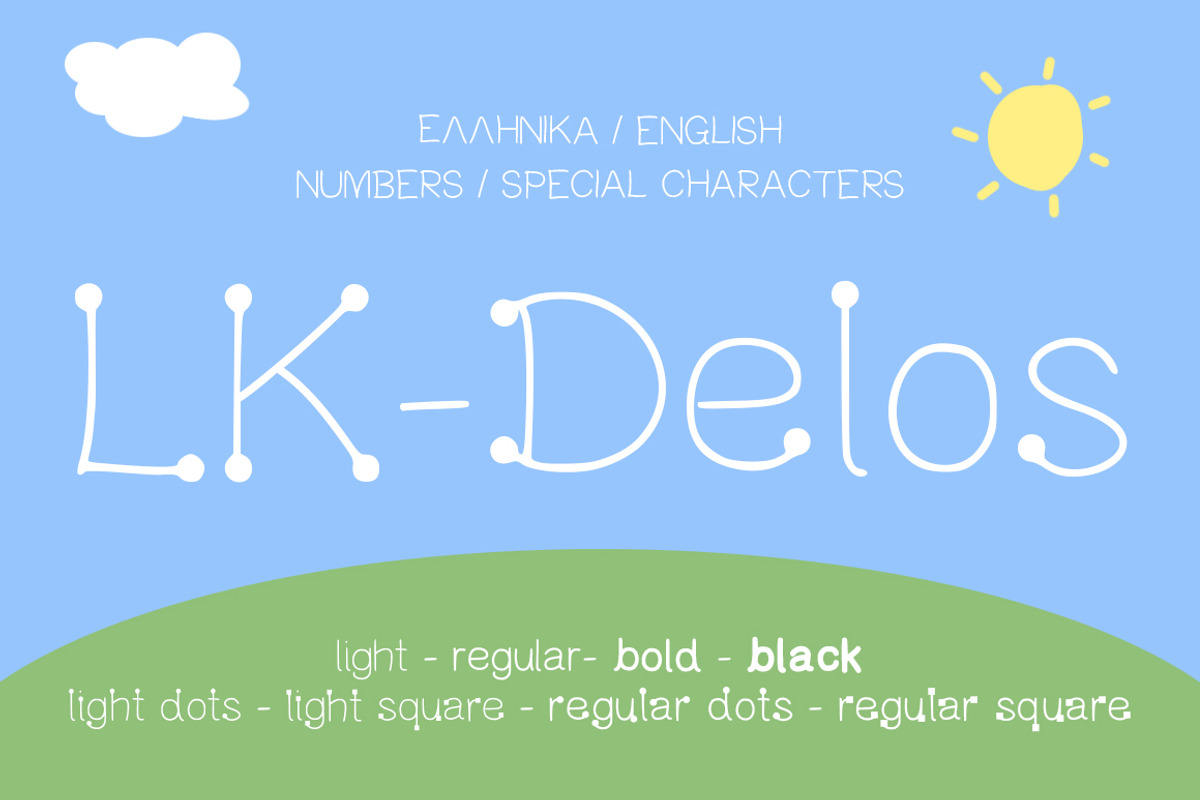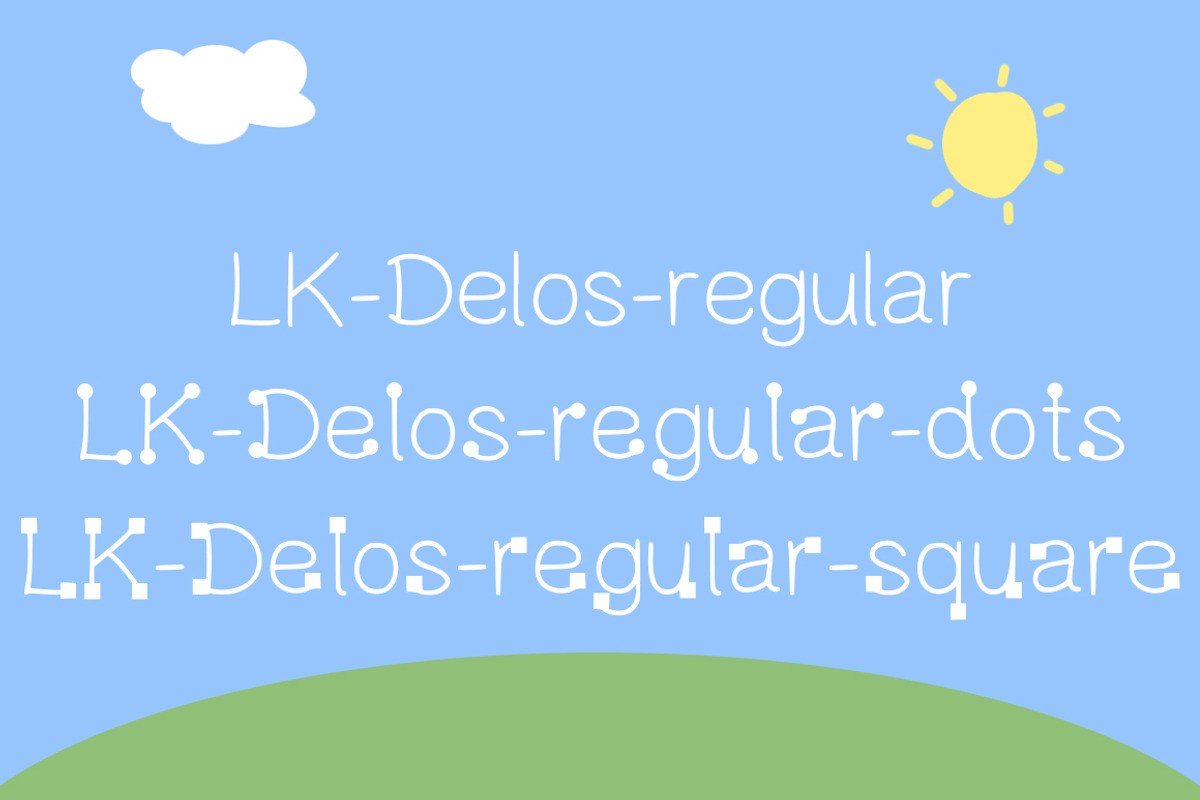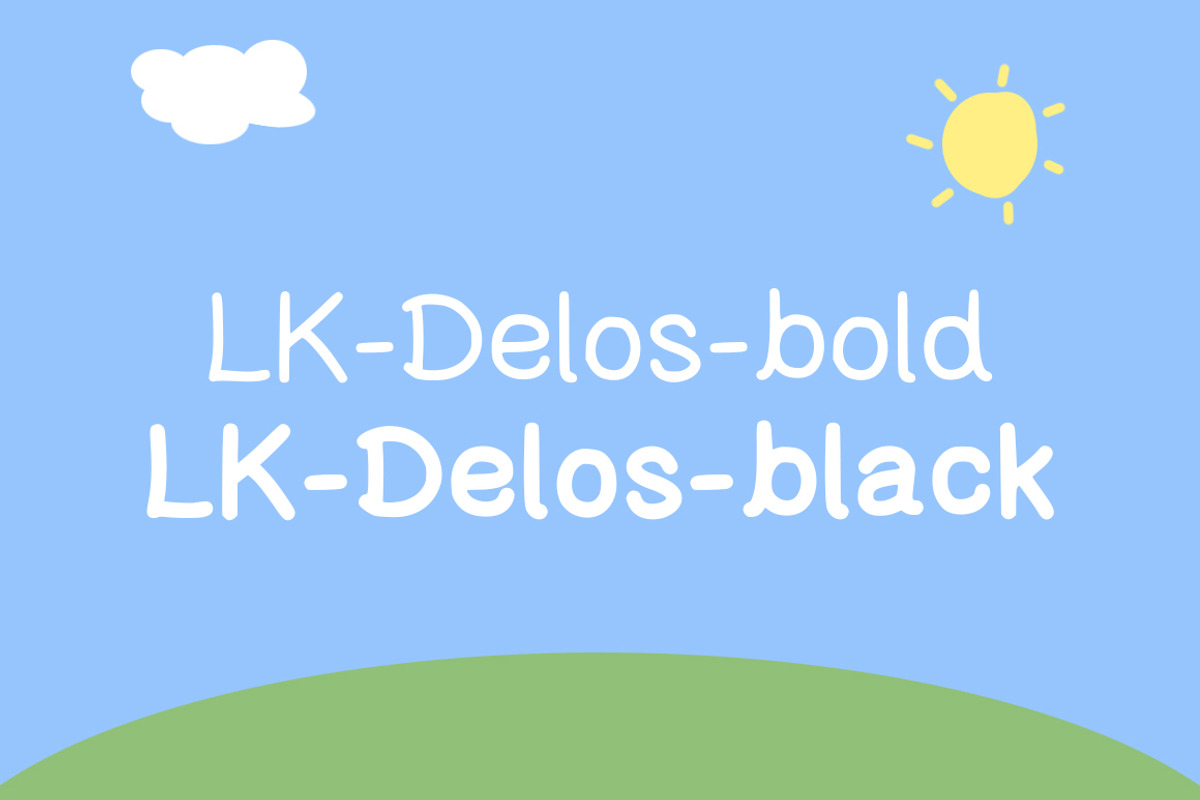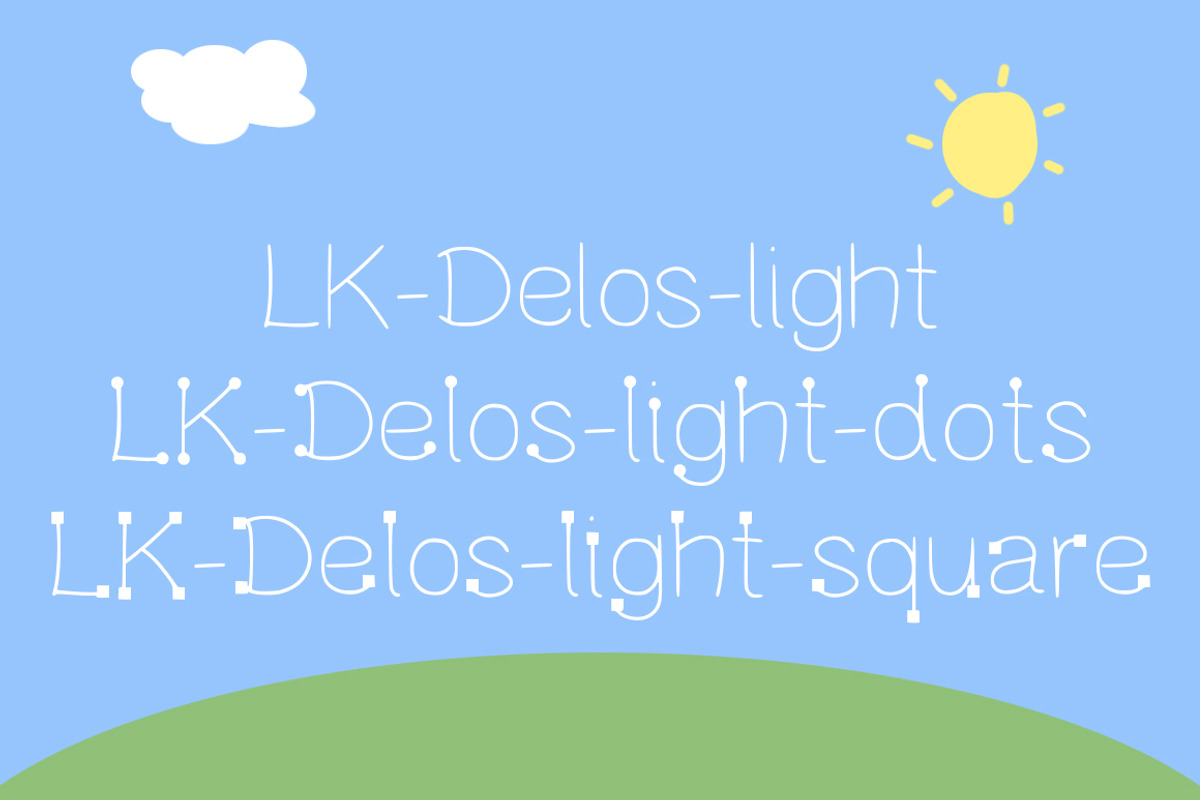
Delos Playful Kids Inspired Font
Delos Playful Kids Inspired Font by Elegrad Design Agency is a font selected for branding, posters, packaging, typography.
Why Delos Playful Kids Inspired Font is worth a look
Delos Playful Kids Inspired Font by Elegrad Design Agency fits naturally into Branding, posters, packaging, typography.